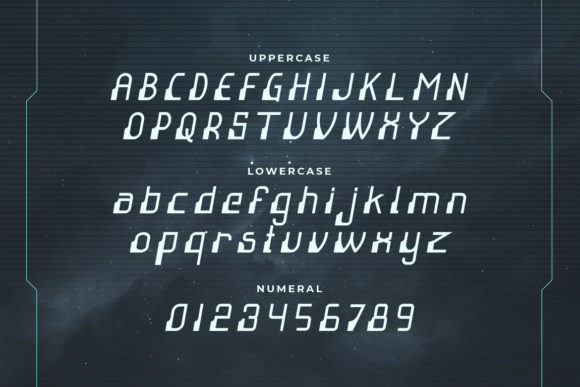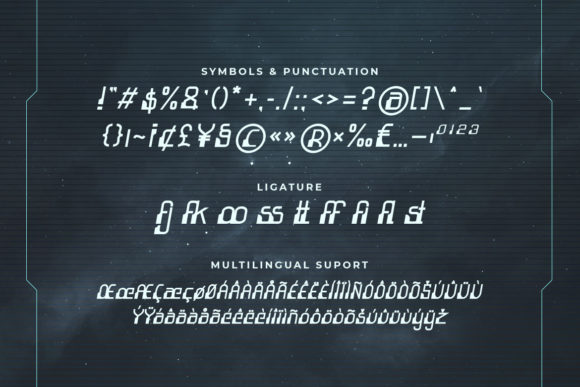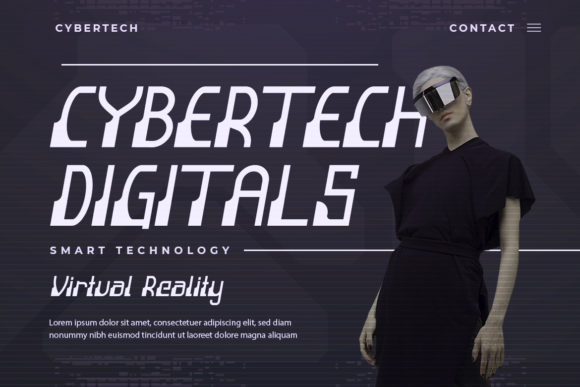
Introduction to Robot Line Font
Robot Line is a tech-inspired display font with a futuristic feel.
Use it to take any tech or computer-themed design idea to the next level .